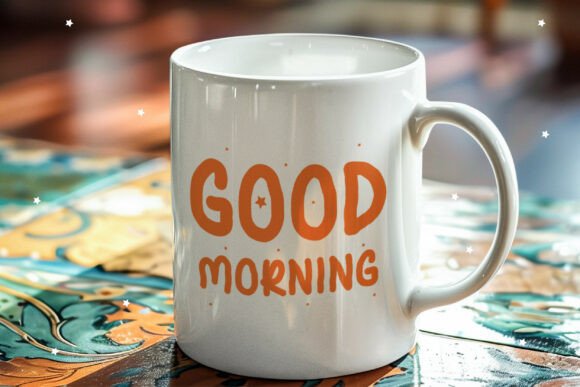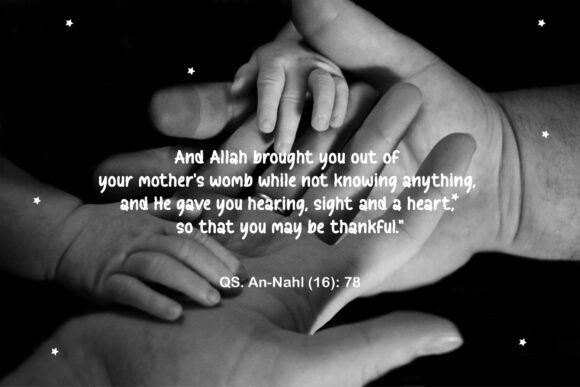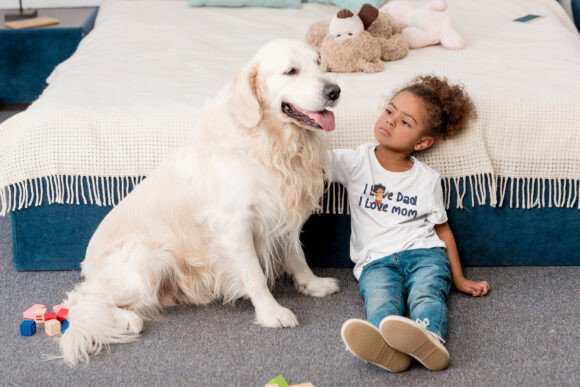
I Am Budi Font – Free Download
Introduction to I Am Budi Font
The “I am Budi” font is a cheerful, handwritten font.
Take your designs to the next level with this eye-catching typeface Use it whenever you need to get creative for various children’s projects, posters, t-shirt designs, Happy Birthday captions, funny titles, and more.
Key Features of I Am Budi Font